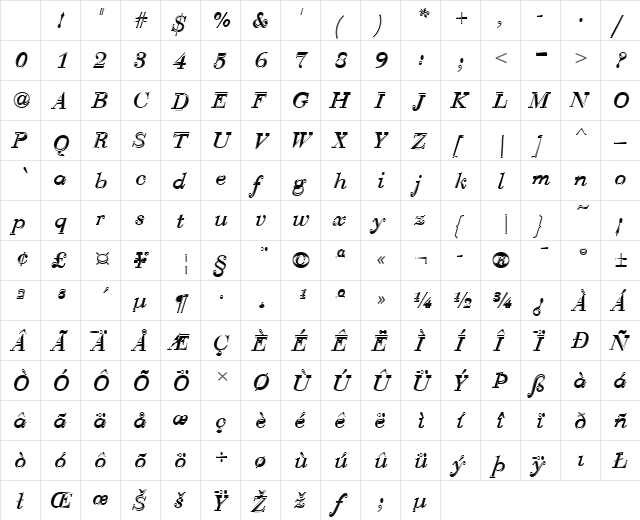
Complete Bauer Bodoni T In1 Regular Italic glyph index. Displaying only characters natively supported by Bauer Bodoni T In1 Regular Italic font.
Bauer Bodoni T In1 is a composed and adaptable typeface that performs quietly and consistently across a wide range of design contexts. The slanted form adds forward momentum and visual energy.
Pro Tip: Use Bauer Bodoni T In1 for emphasis, pull quotes, and subheadings where its slanted energy can add rhythm to the layout.